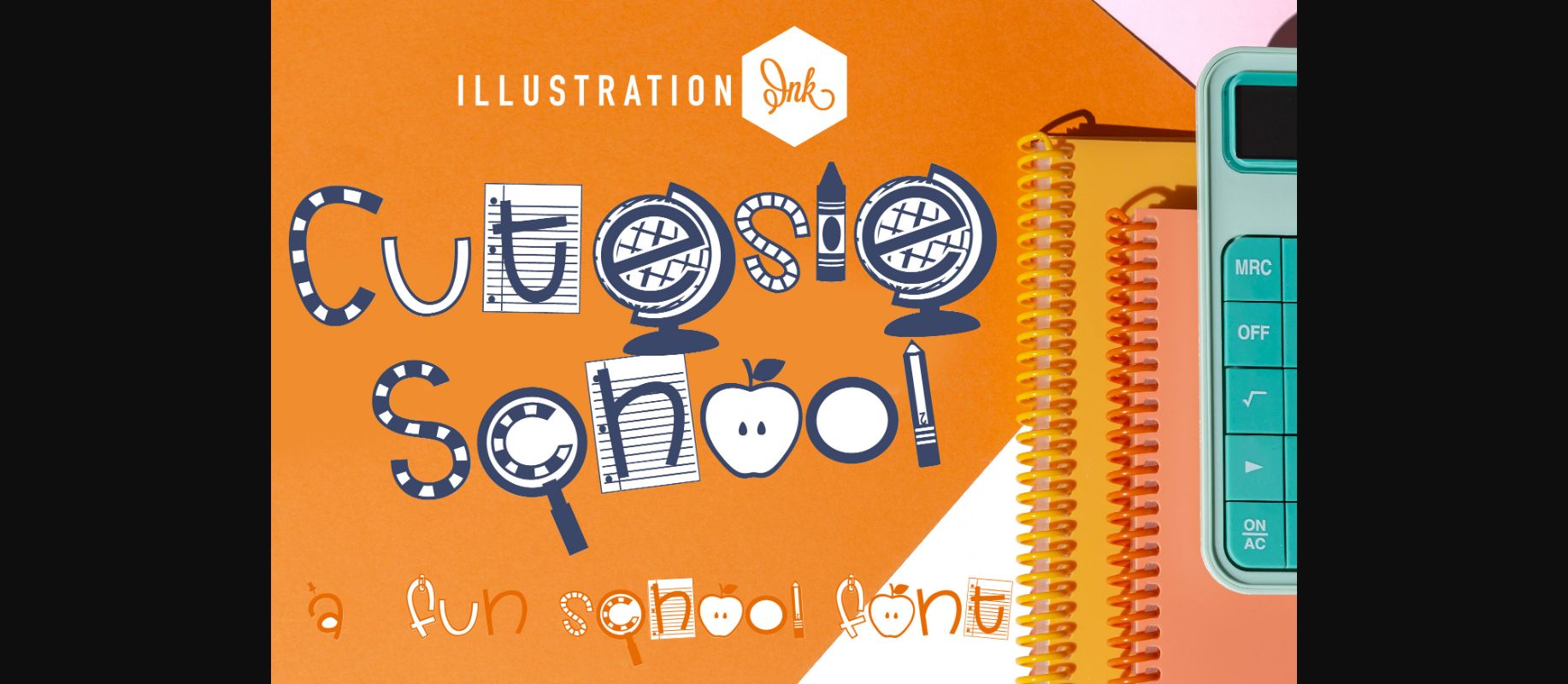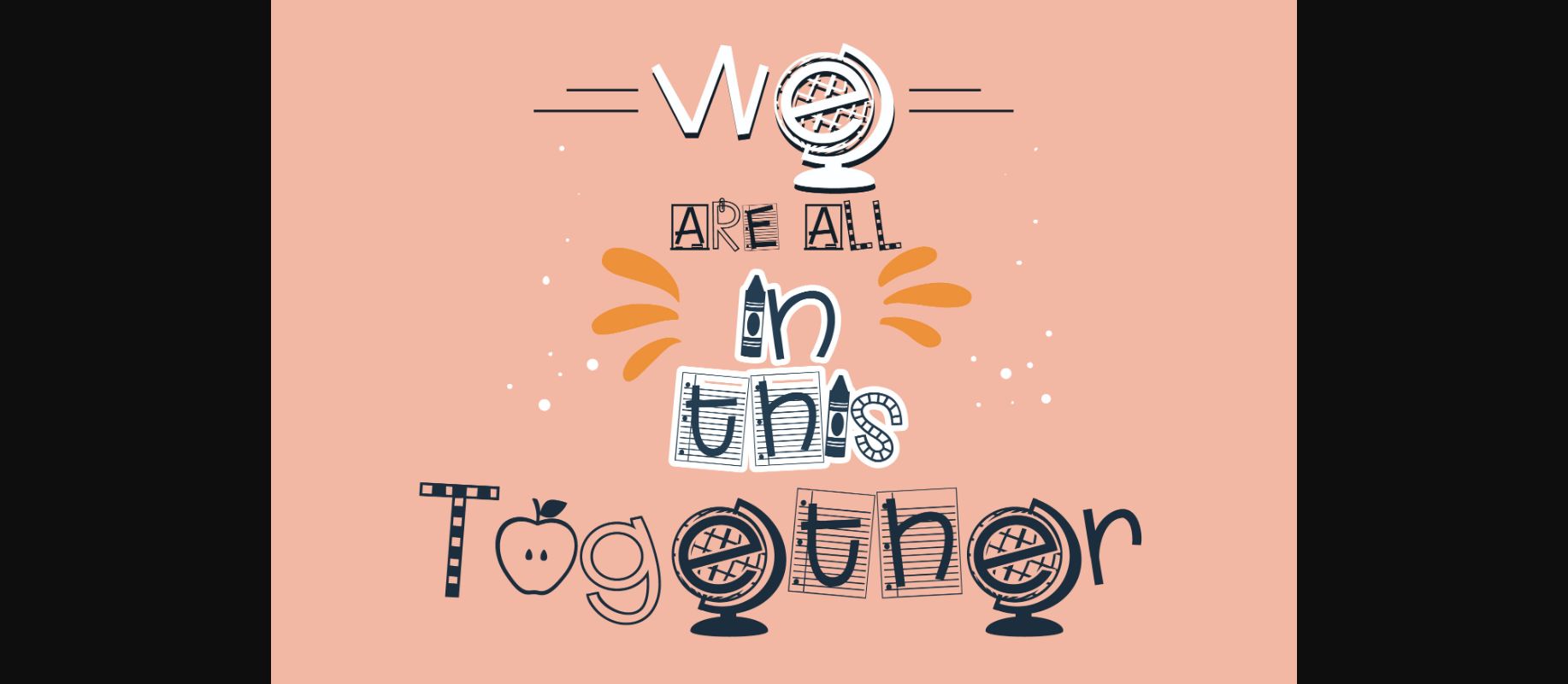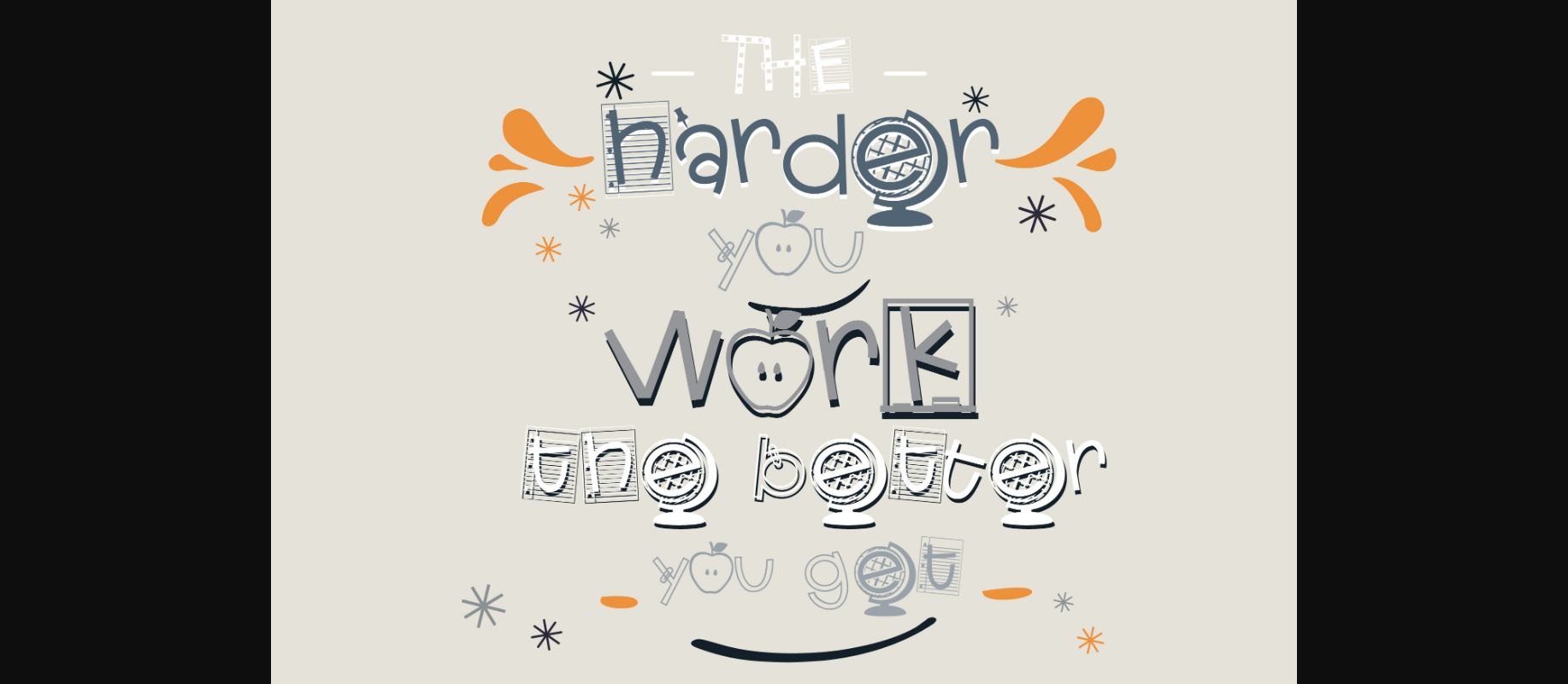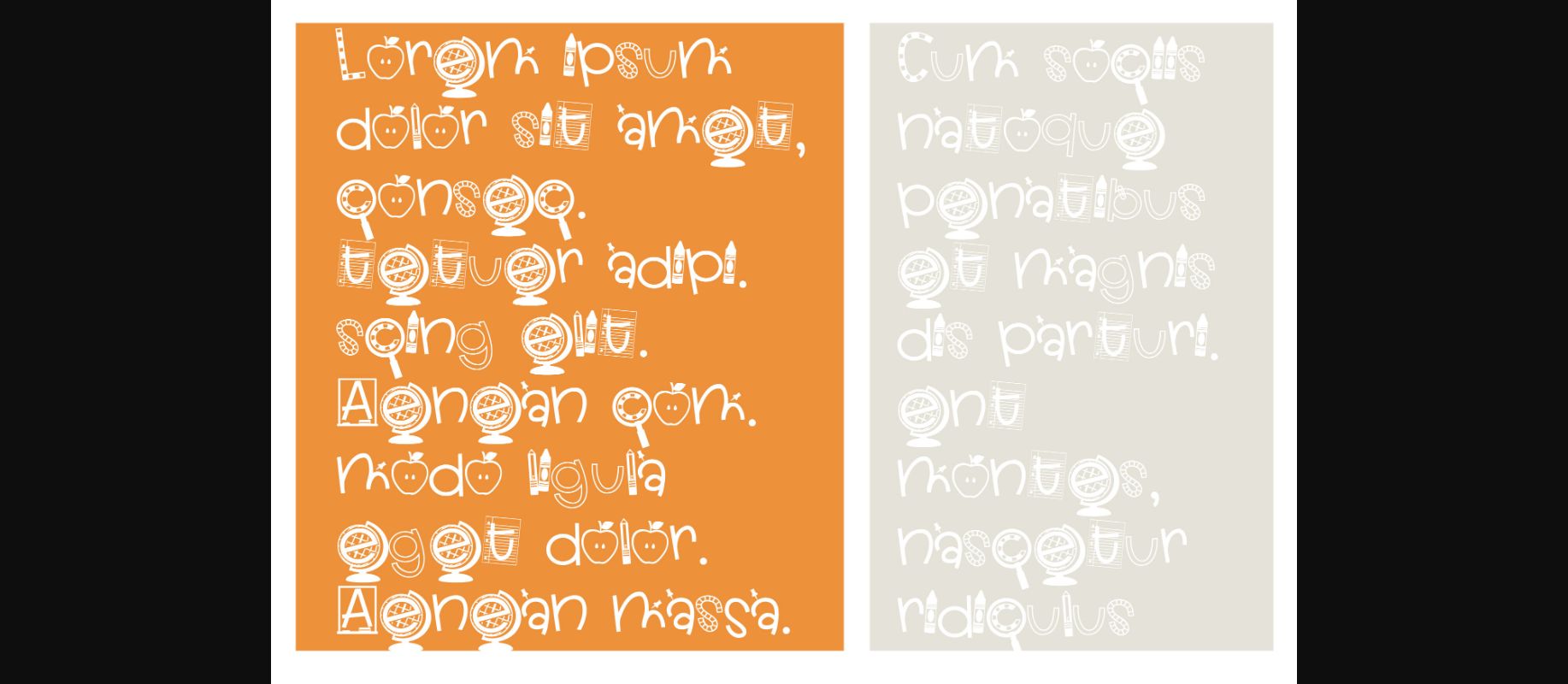
About Cutesie School Font
Cutesie School font is a charming and playful typeface that takes learning to a delightful level. Featuring whimsical letters adorned with adorable school supplies, this font adds a touch of nostalgia and creativity to your designs. Whether it’s crafting educational materials, classroom posters, or school-themed projects, Cutesie School brings a smile to your text with its clever and endearing character substitutions.